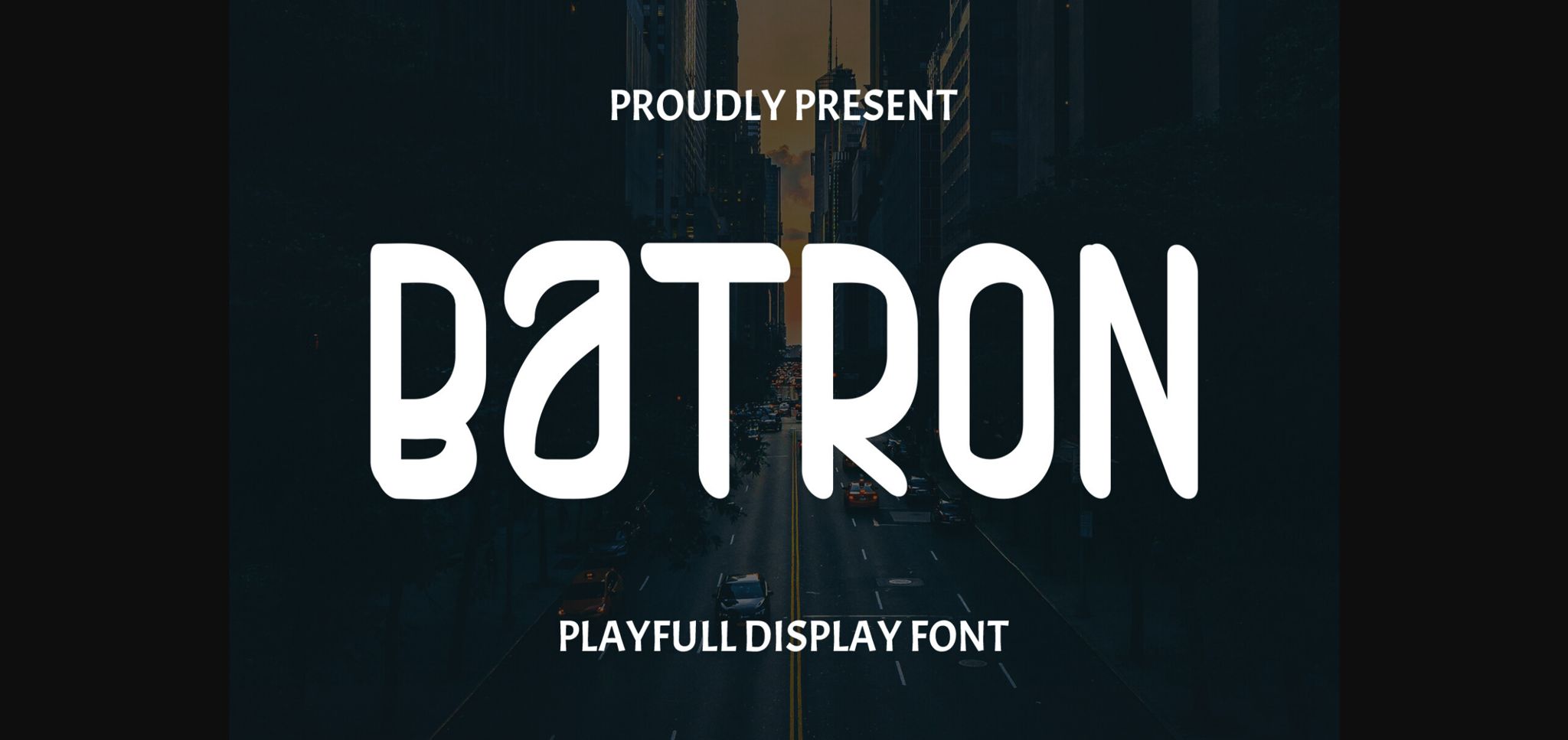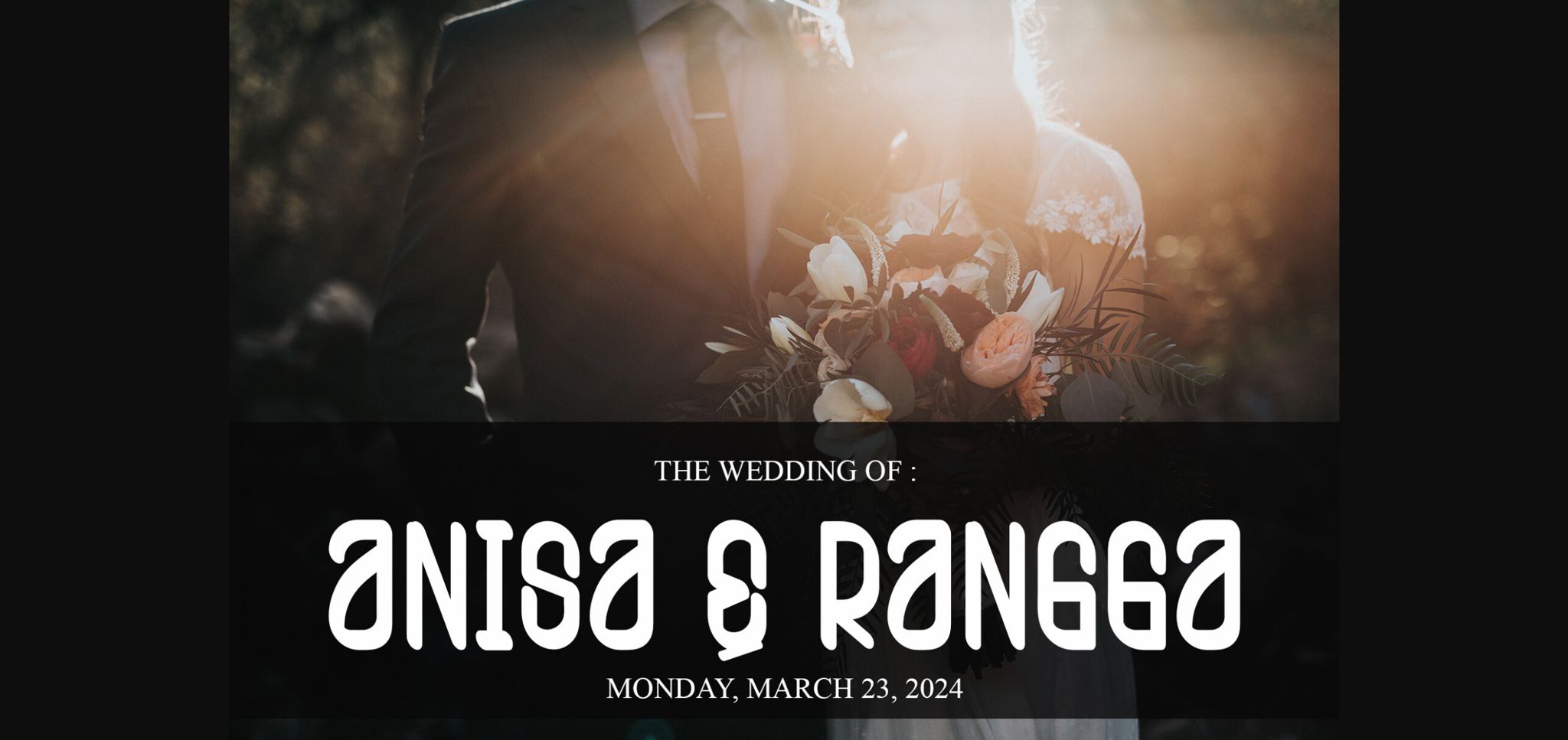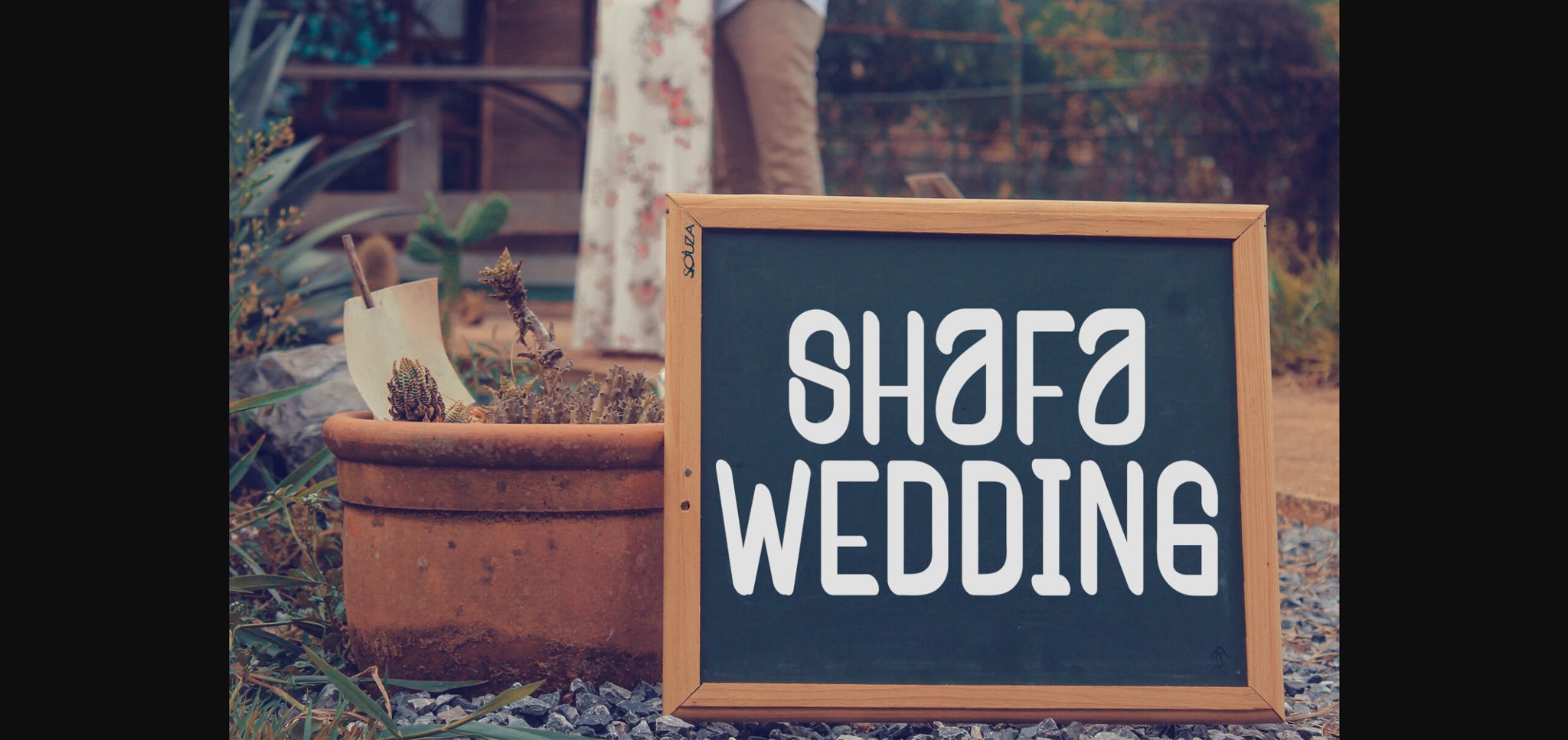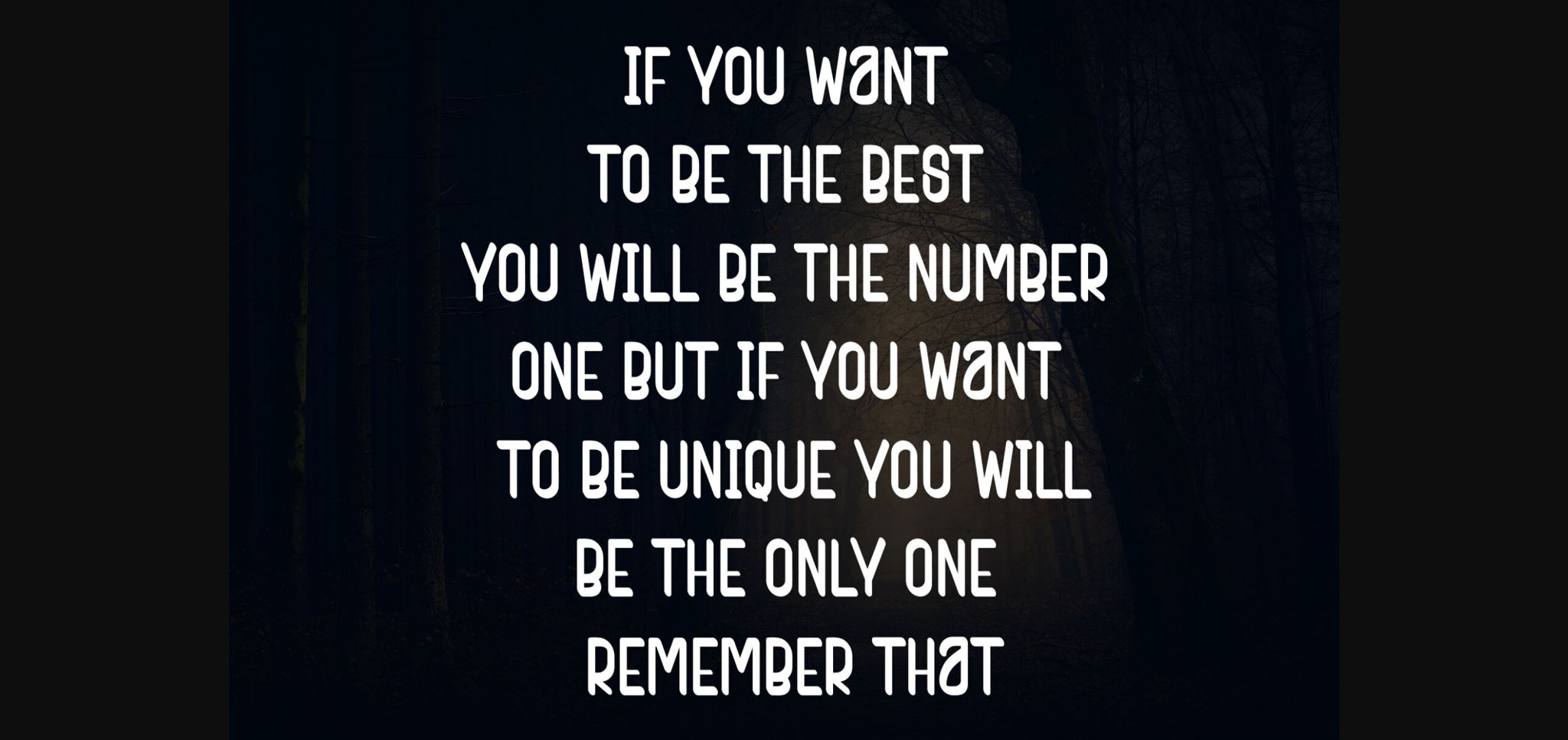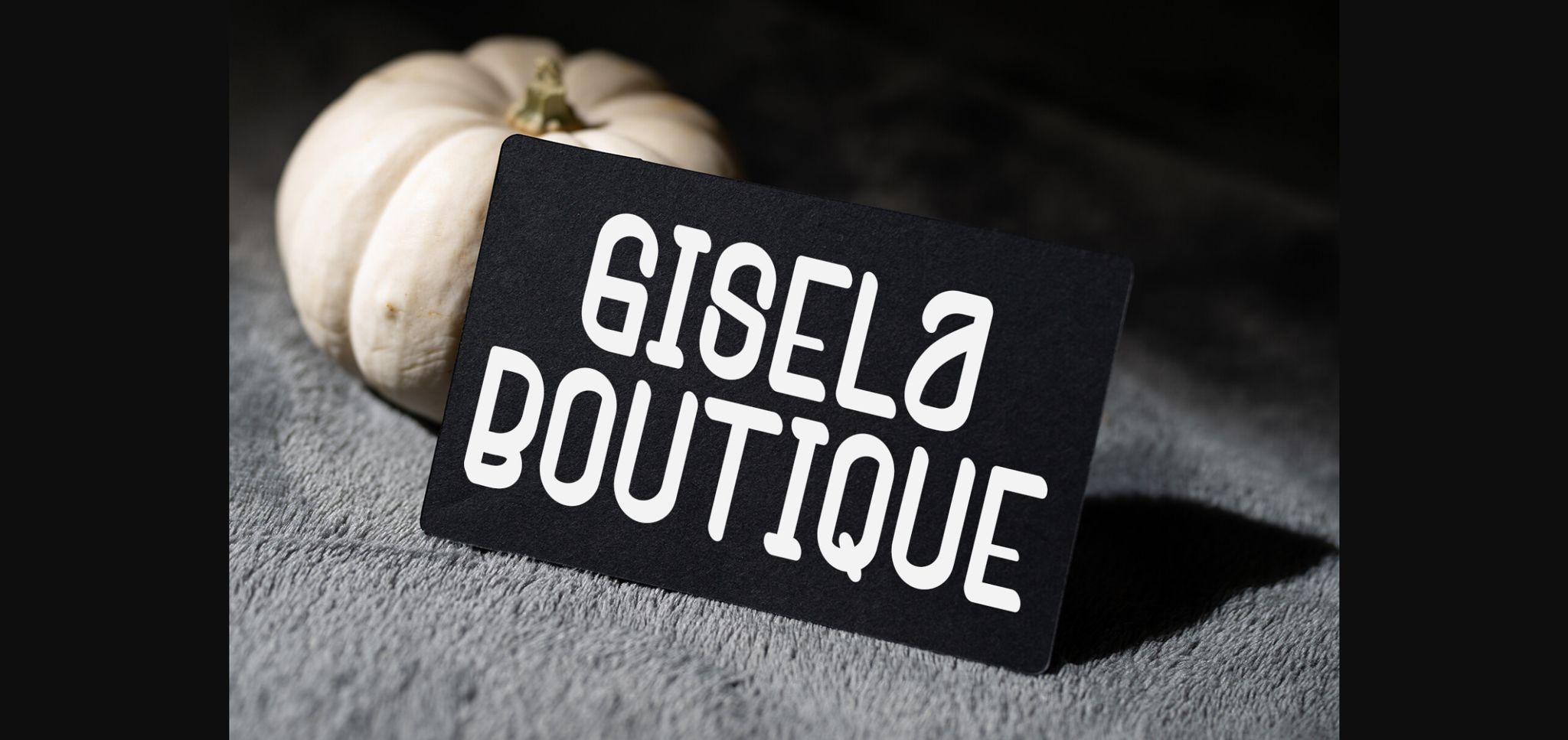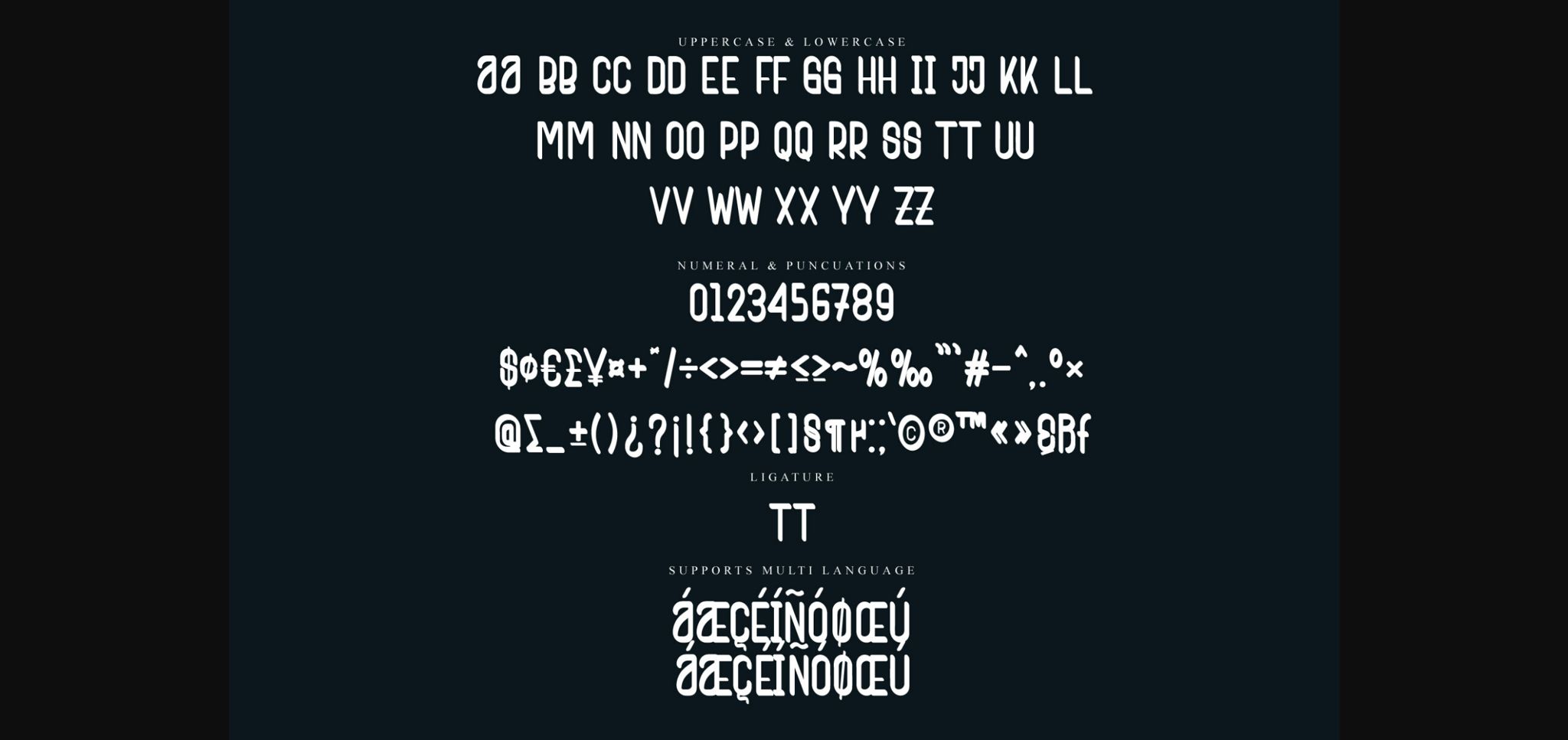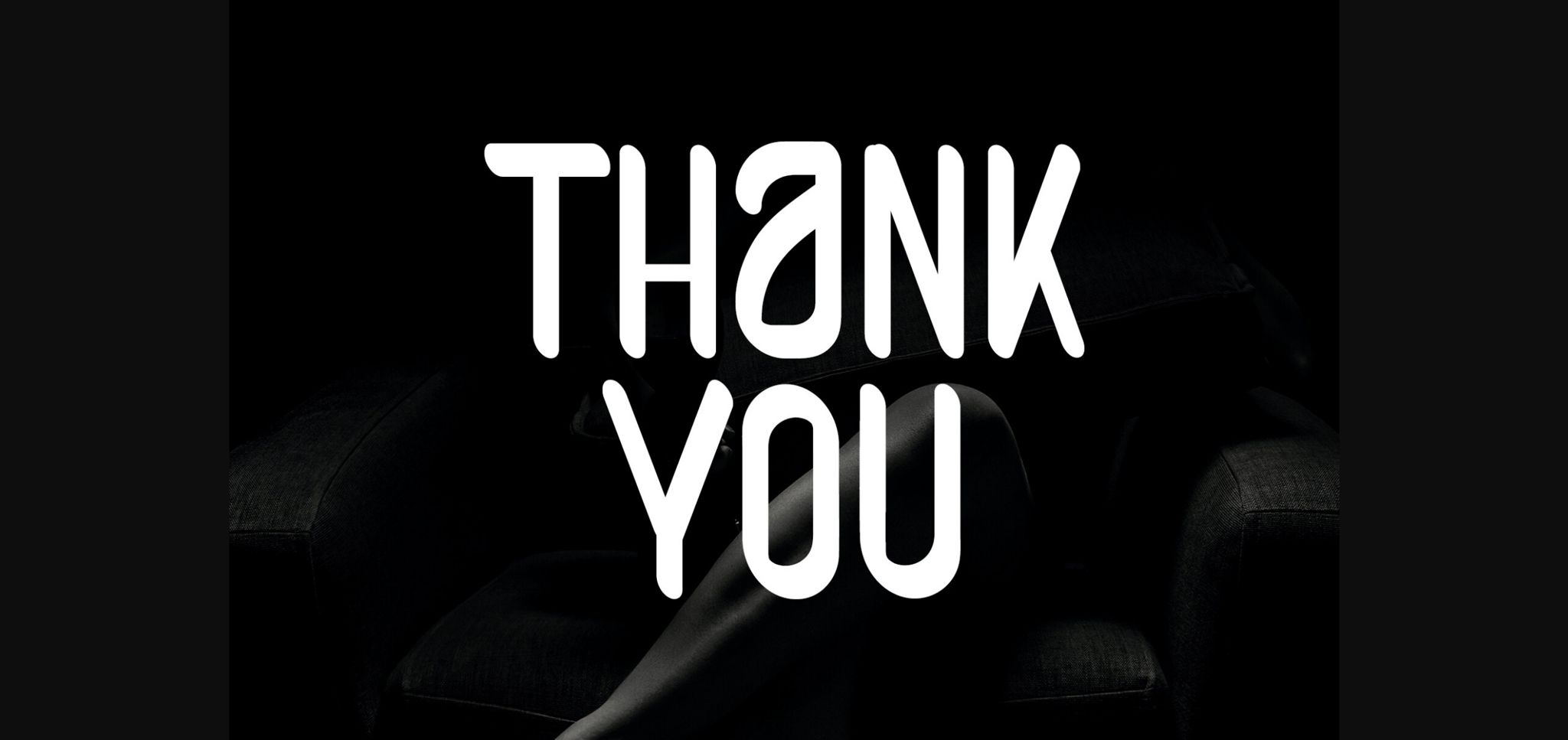
About Batron Font
Presenting Batron – an exquisite sans-serif font that dawns an aura of elegance and appeal. Adorning dancing characters that flirt with the baseline, Batron offers an opulent nuance to your creative endeavors. This font truly encapsulates the beauty of design, tailor-made to elevate all your design projects to a realm of sophistication!